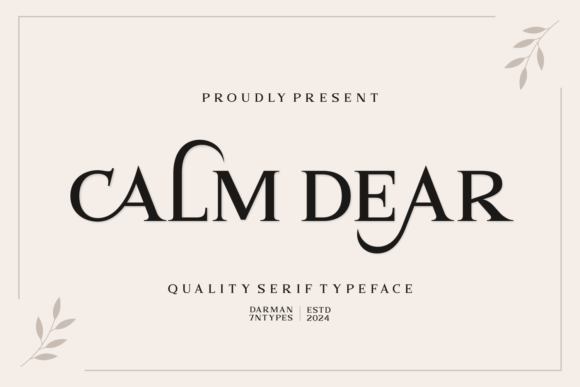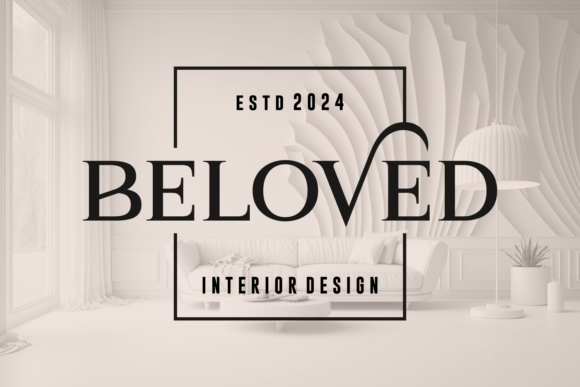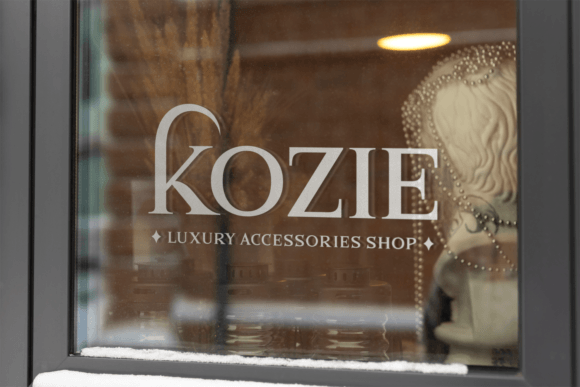
Calm Dear Font: Elegant Serif for Wedding Invitations & Logo Design
About the Calm Dear Font
Make a bold statement with Calm Dear Font, a powerful and memorable font. Introducing a luxurious and stylish serif font that is all about elegance and beauty. Perfect for all your wedding lettering requirements or any popular calligraphy needs. This smooth, clean, and modern font adds a touch of fun to your design projects. It’s the ideal font for poster mock-ups, label designs, or an impressive logo type elevating your greeting cards, covers, and branded cards.
Calm Dear Font’s elegant yet playful nature makes it ideal for headlines, short-form text, and branding applications where a touch of sophistication is desired. It excels in logo design, packaging for premium products, and short-text posters. However, its delicate serifs make it less suitable for extended body text or UI elements where readability is paramount.
For optimal pairings, consider contrasting Calm Dear Font with a clean sans-serif like Montserrat for a modern feel, or a geometric sans-serif such as Futura for a more minimalist approach. A playful script font could also work well, adding a layer of hand-drawn charm while maintaining visual harmony.
The overall personality of Calm Dear Font is sophisticated yet approachable; it’s best suited for brands conveying luxury, quality, and a sense of refined fun, making it perfect for wedding stationery, high-end fashion, or artisanal food products.
Calm Dear Font Usage Examples
Calm Dear Font Example